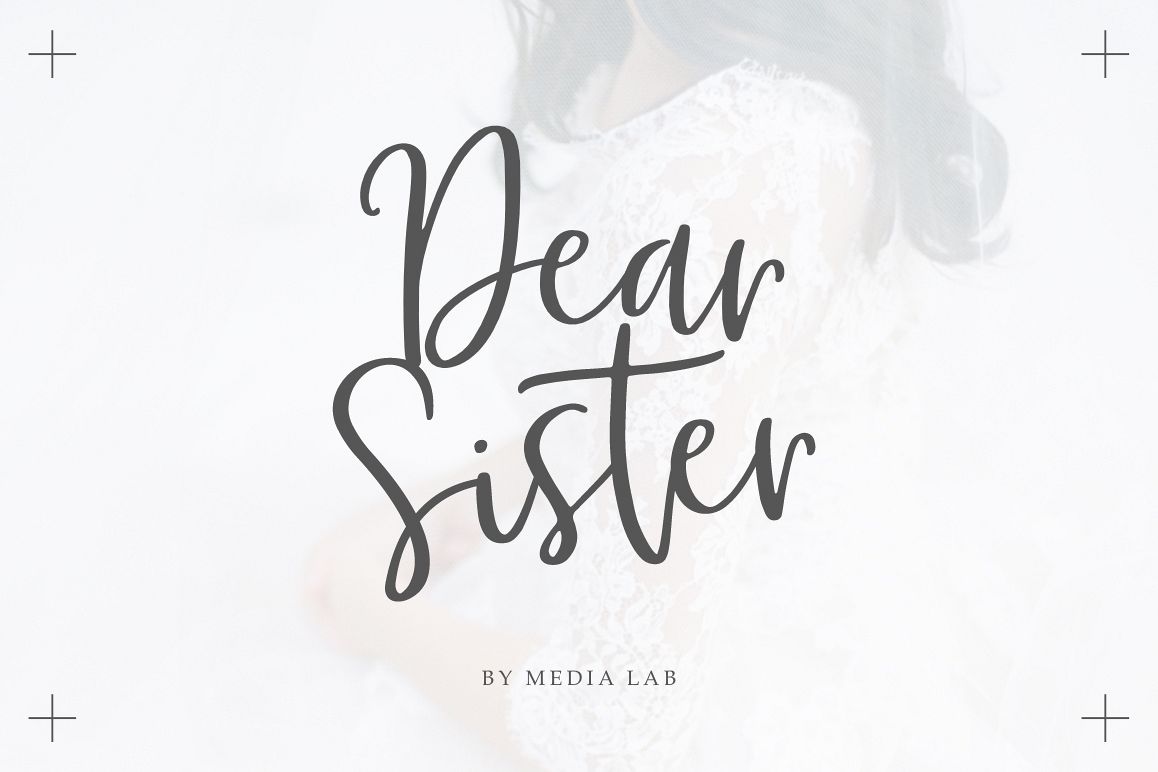
Dear Sister handwritten Luxury Script
This modern calligraphy script has been attentively written, with gentle curves to produce a font thats completely distinctive and original. It contains a full set of lower & uppercase letters, a large range of punctuation, numerals, and multilingual support. Perfect for adding a elegant and unique touch to your lettering projects and branding
• Support ALL European Languages